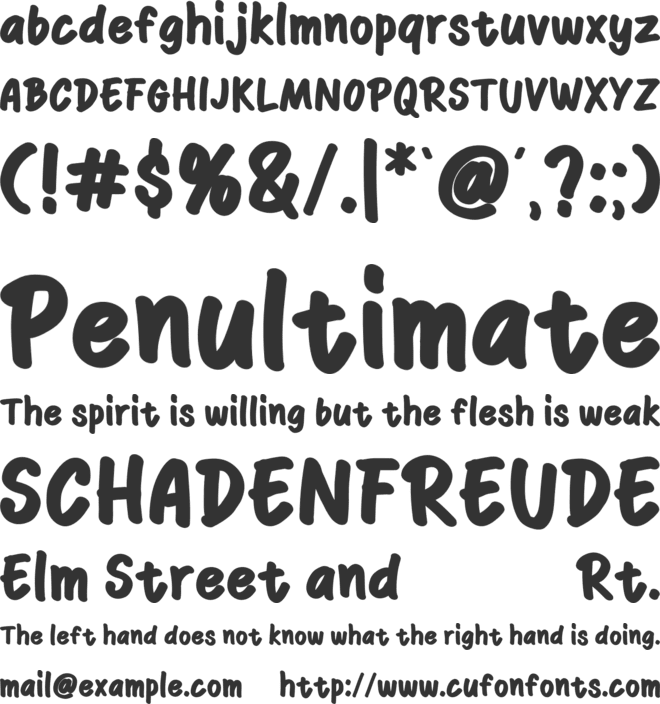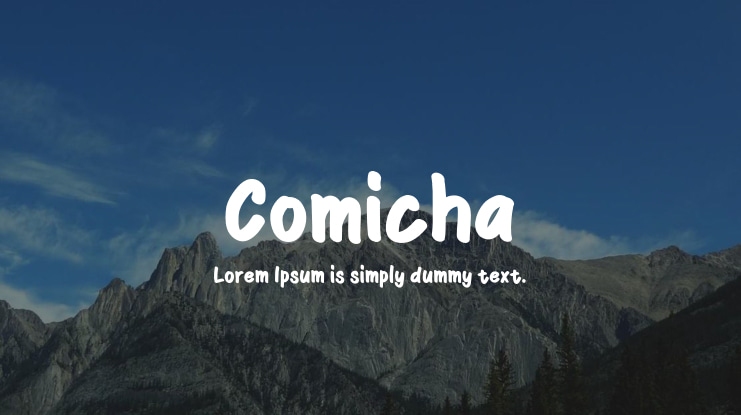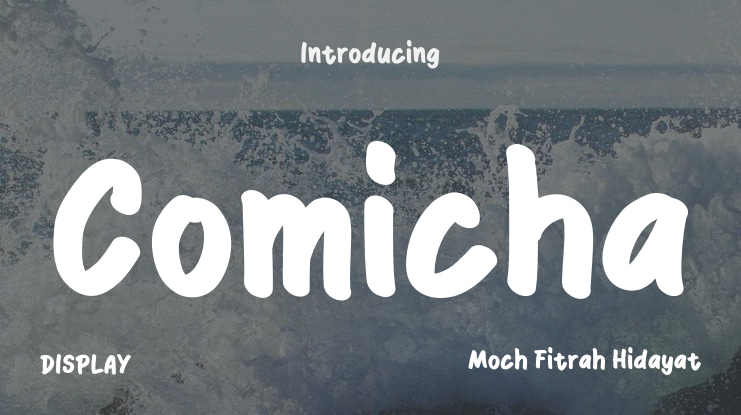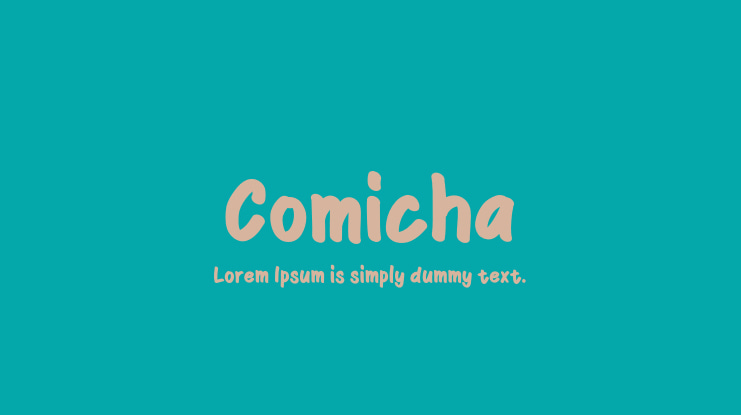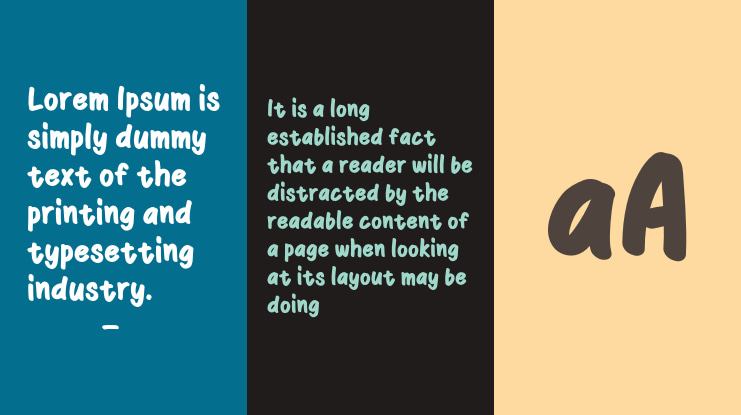
Comicha Font
Macomic Brush is a cutting-edge typeface designed in a brush style. This typography is optimized for large sizes, making it perfect for merchandise design, social media, marketing posts, product packaging, and branding projects. Macomic supports uppercase and lowercase letters, numerals, and punctuation.